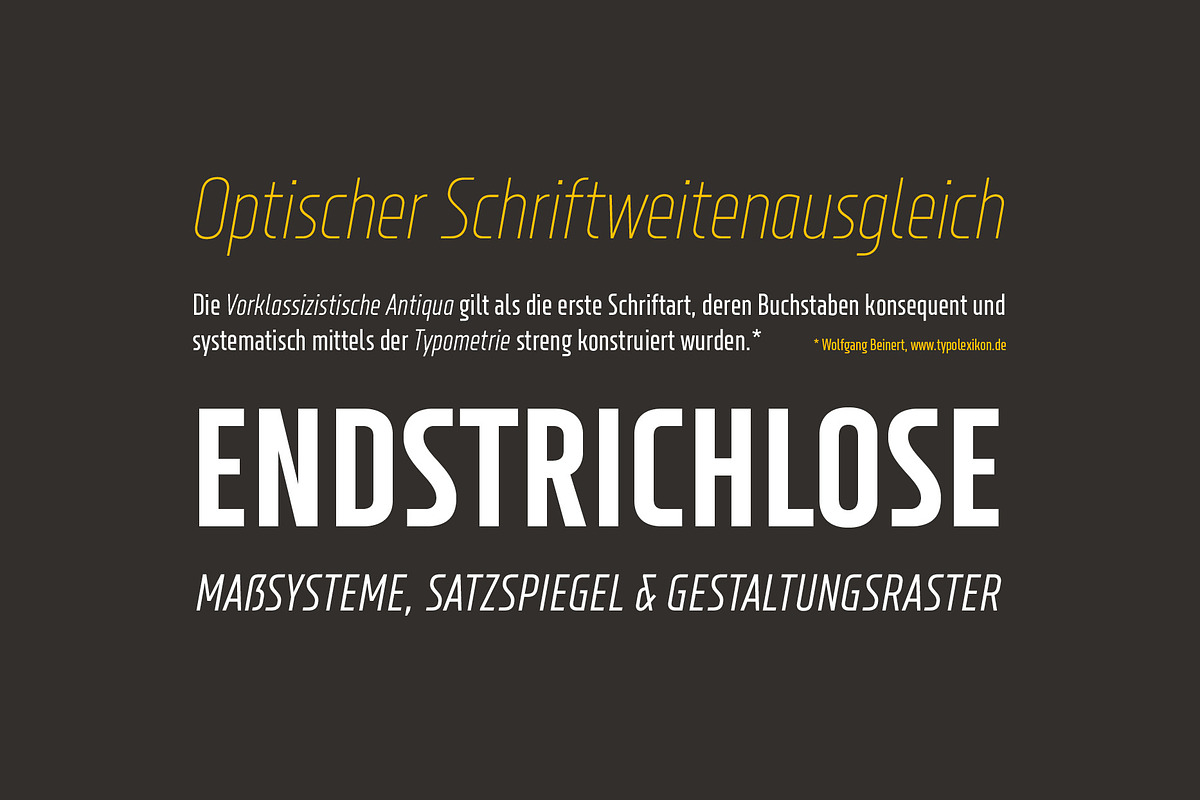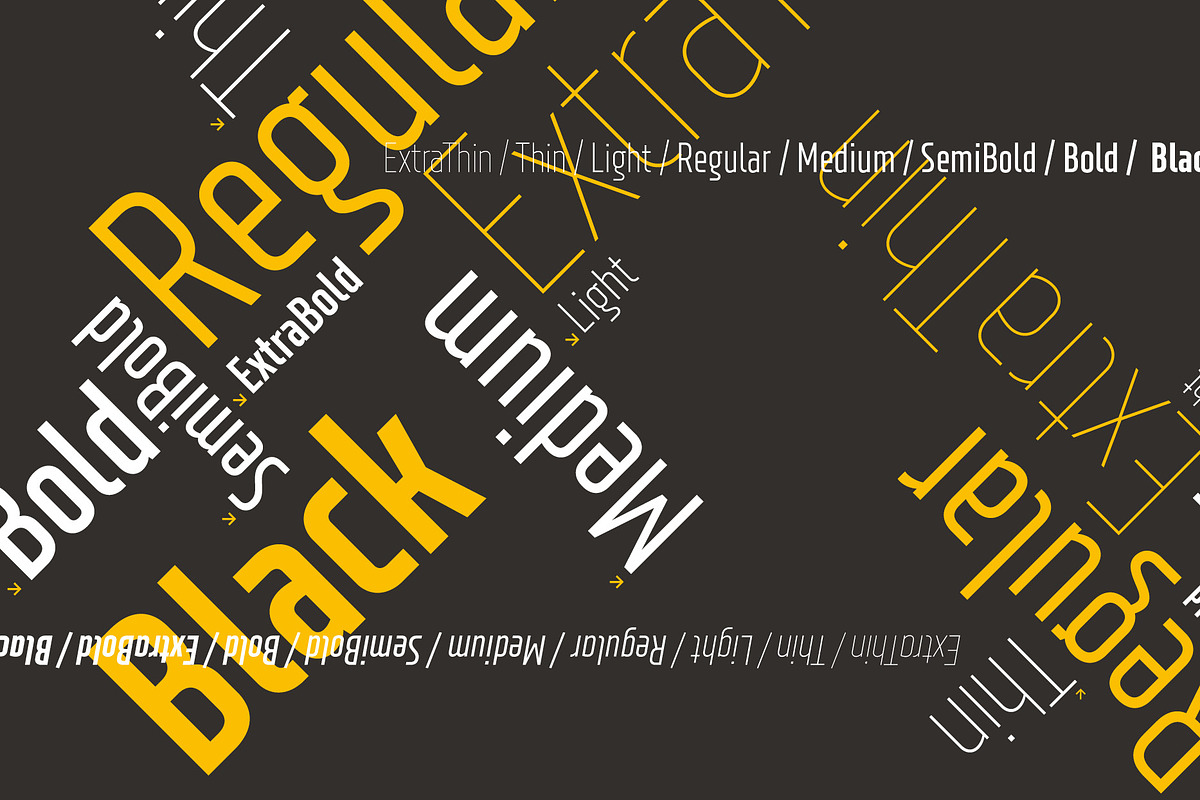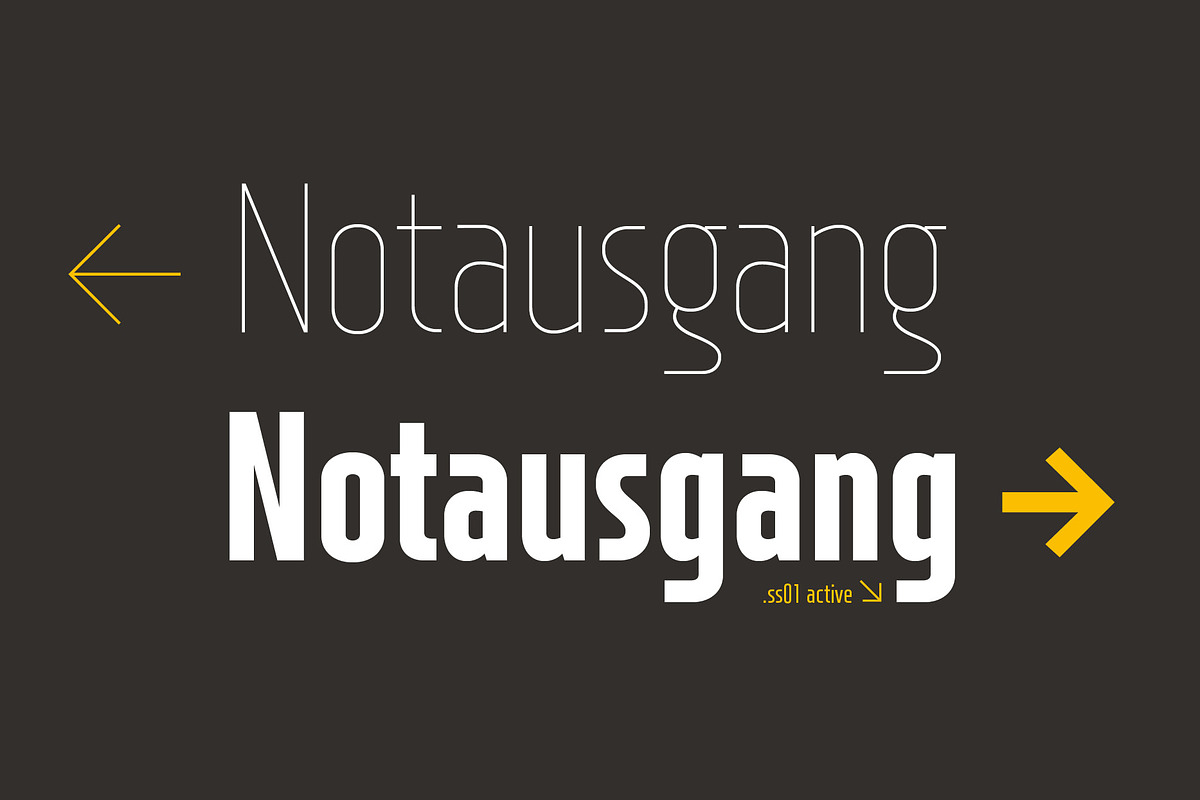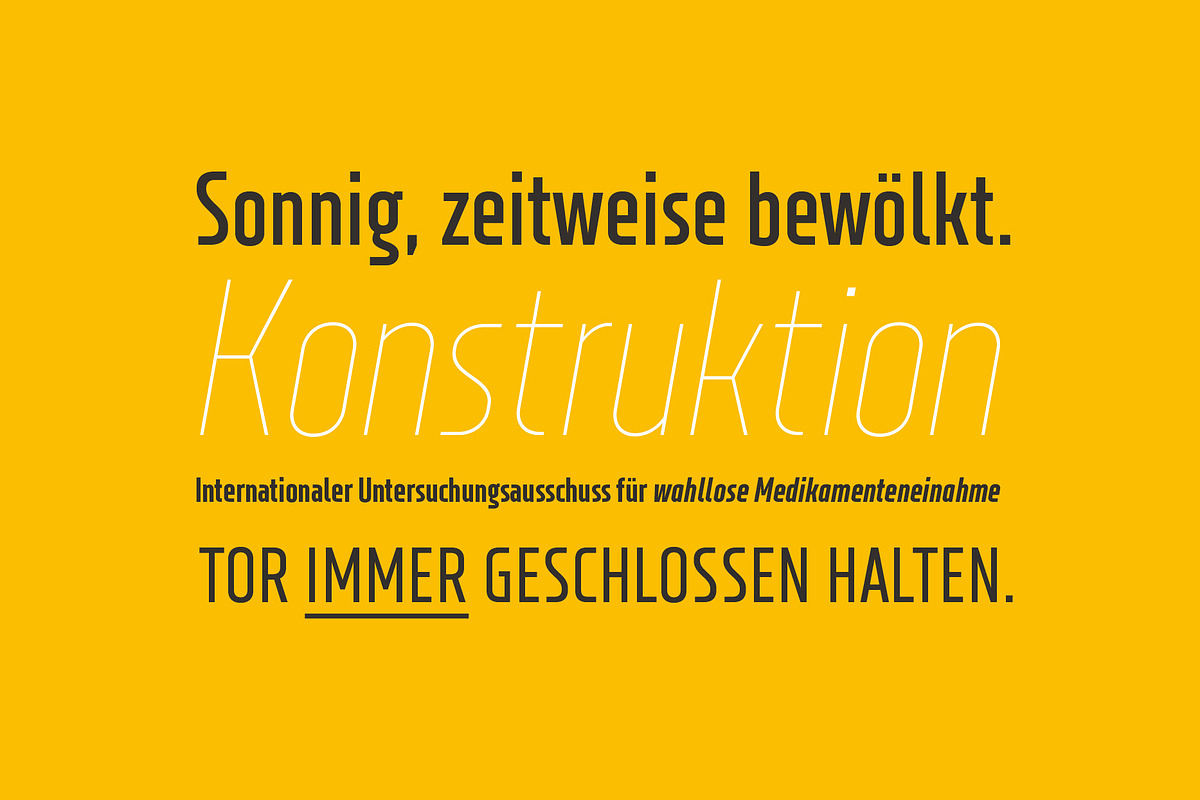
XXII Neue Norm Cnd
If you liked the power and straightness of a DIN Condensed, but wanted it a bit more technical and modern, you may love this little family. XXII Neue Norm is a constructed, low contrast, sans serif typface of nine weights and its fitting italics.